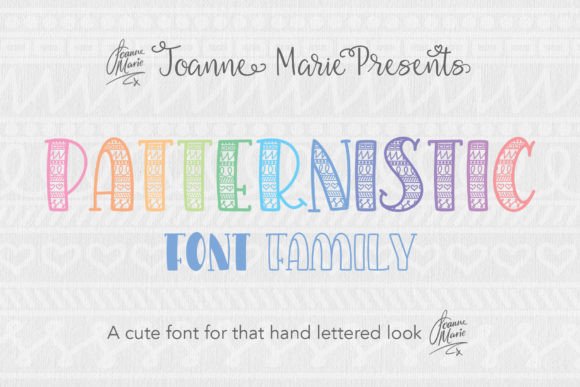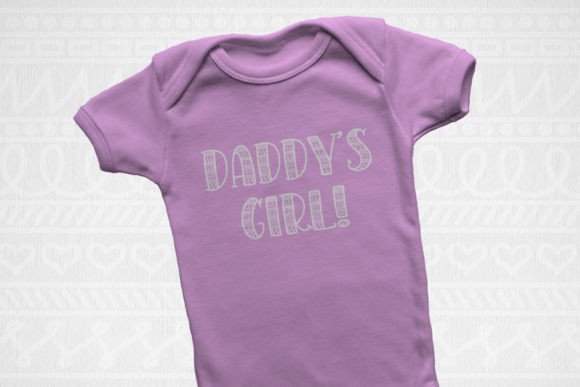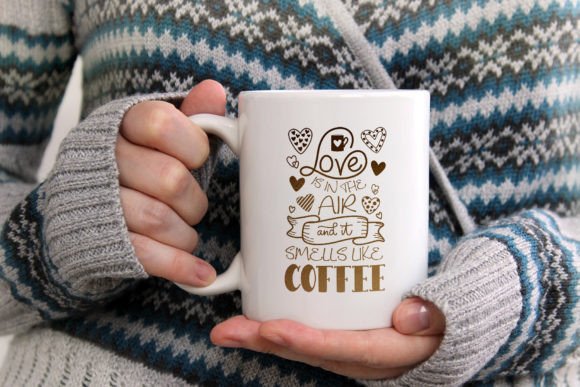
Patternistic Font
About the Patternistic Font
Step up your design game with Patternistic Font, a font that exudes confidence and style. PATTERNISTIC is a cute and fun, all-caps font for any hand lettering style project. There are 2 fonts included in this family and the uppercase is different from the lowercase (one is solid and one is outline).
It contains 2 fonts:
Patternistic – this has solid numbers and punctuation, international glyphs, etc.
Patternistic Doodle – this has outlined patterned numbers and punctuation, international glyphs, etc.
Patternistic is best suited for headlines, short text blocks, logos, and branding elements where its playful nature can shine. It works exceptionally well in children’s book illustrations, playful packaging designs, and social media graphics. Avoid using it for body copy or lengthy paragraphs; its decorative style is not legible at smaller sizes or in extended passages.
The bold, playful personality of Patternistic pairs well with clean sans-serif fonts like Open Sans or Lato for a balanced contrast. For a more whimsical feel, consider pairing it with a script font such as Great Vibes or Pacifico. Using Patternistic Doodle with a geometric sans-serif like Montserrat creates a modern, playful juxtaposition.
Patternistic’s solid and outlined variants offer design flexibility. Employ the solid version for emphasis and the outlined version for visual interest and to avoid overwhelming a design with too much boldness.
Patternistic Font Usage Examples
Patternistic Font Example